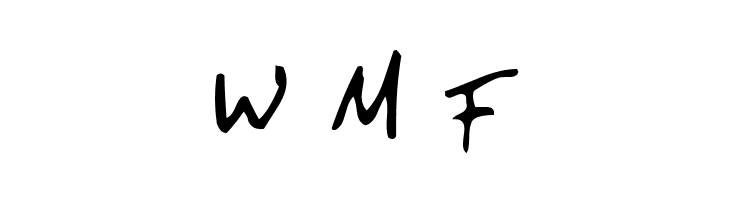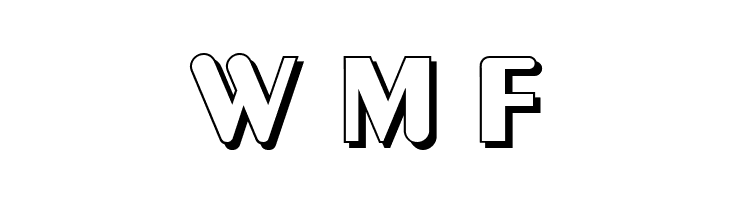
A modern, unicase font with elongated, narrow characters and consistent stroke width.
A bold, futuristic font with angular, dynamic letterforms.
A sleek, italicized font with a futuristic and dynamic design.
A modern, futuristic outline font with a sleek and dynamic design.
A bold, geometric font with a pixelated, retro digital style.
( Fonts by Levi Halmos )
A futuristic, geometric font with sharp angles and a blocky structure.
( Fonts by www.abecedarienne.com )
A whimsical, hand-drawn font with elongated, irregular strokes and a playful aesthetic.
A narrow, elegant serif font with moderate contrast and refined style.
( Fonts by Iconian Fonts - Daniel Zadorozny )
A bold, outlined font with sharp, angular serifs and a dramatic presence.
( Fonts by Iconian Fonts - Daniel Zadorozny )
A bold, angular serif font with a dramatic and powerful presence.
( Fonts by Iconian Fonts - Daniel Zadorozny )
A bold, decorative font with sharp serifs and strong contrast, ideal for dramatic designs.
( Fonts by Iconian Fonts - Daniel Zadorozny )
A bold, shadowed font with sharp serifs and a vintage, three-dimensional look.
A bold, gothic-style font with intricate, medieval-inspired details.
A bold, geometric font with tribal-inspired dot patterns and sharp angles.
An elegant script font with flowing, interconnected letters and ornate uppercase characters.
( Fonts by www.misprintedtype.com )
A bold, distressed font with a grungy, urban style.
A bold, outlined font with a modern and playful style.
( Fonts by Bartek Nowak - www.nowak.tv/fontoholic/ )
A bold, rounded font with a playful and retro vibe.
A futuristic, pixelated font with a digital, grid-like design.
( Fonts by Cumberland Fontworks - http://www222.pair.com/sjohn/fonts.htm - S. John Ross )
A bold, freehand-style font with dynamic strokes and artistic flair.
An ornate blackletter font with intricate flourishes and a gothic style.
A rugged, distressed font with a hand-drawn, primitive style.
( Fonts by Jeri Ingalls - littlehouse.homestead.com )
A playful, balloon-themed decorative font with a whimsical style.
A bold, angular font with a strong, geometric style.